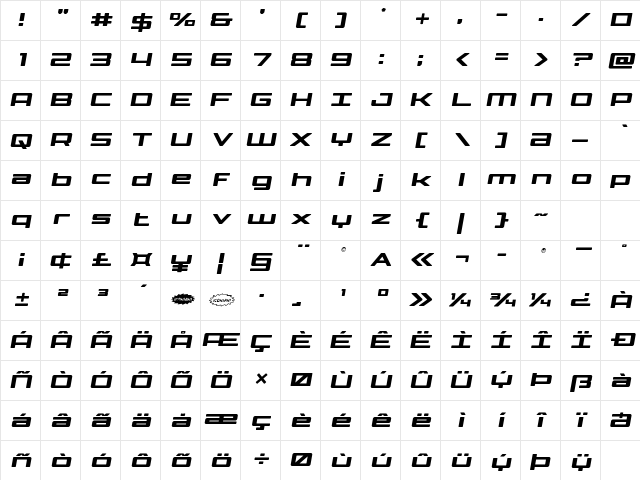
Phoenicia Lower Case Semi-Italic Semi-Italic
Style: Semi-Italic
Design Context for Phoenicia Lower Case Semi-Italic
Phoenicia Lower Case Semi-Italic is a composed and adaptable typeface that performs quietly and consistently across a wide range of design contexts. The slanted form adds forward momentum and visual energy.